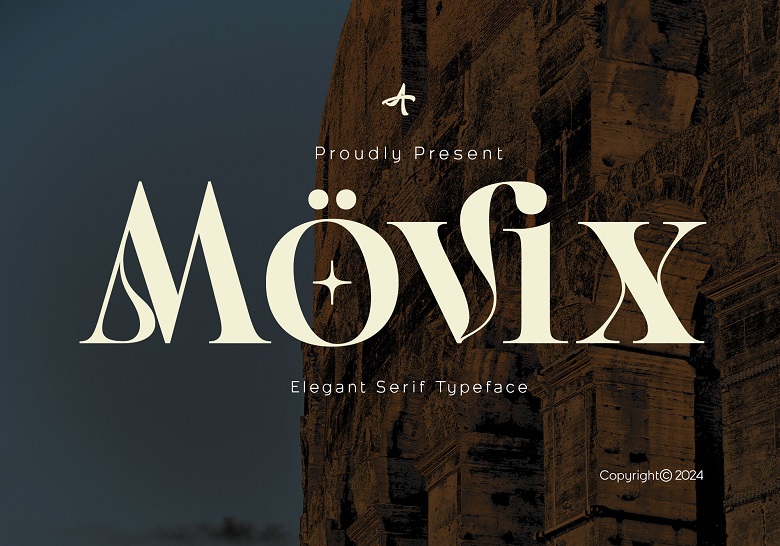
Movix Font
Movix is a serif font with special and stylish characteristics that make it look old and new at the same time. As its name suggests, it resembles old-fashioned scripts that one could find in classic movies, being at the same time refined and stylish for the modern age.
Due to the OpenType features with options such as Ligature and Alternates, Movix allows users to select the kind of style for the letters appropriately. Also, Movix is a very flexible video editor because it can accommodate multiple languages for different creative projects.
This font is perfect for big projects like films, novels, music albums, billboards, advertisements, and many others. Hence, with Movix each project will be distinguishable by clear and rather profound character accompanied by the affectation of timelessness.
Movix Serif Font